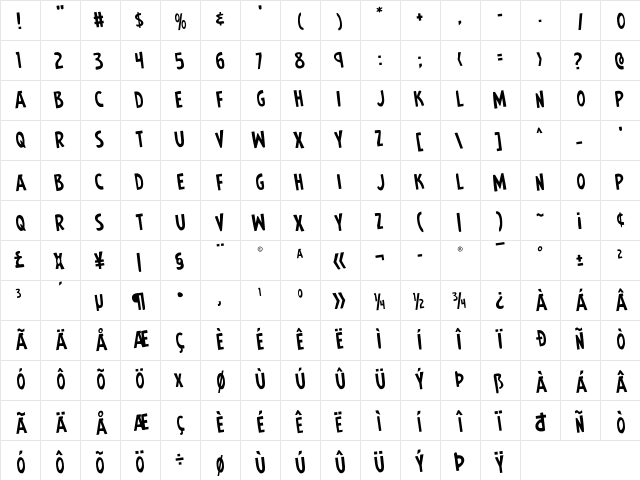
Earth's Mightiest Jumbled Rotated Regular
Design Context for Earth's Mightiest Jumbled Rotated Typeface
Earth's Mightiest Jumbled Rotated is a composed and adaptable typeface that performs quietly and consistently across a wide range of design contexts.